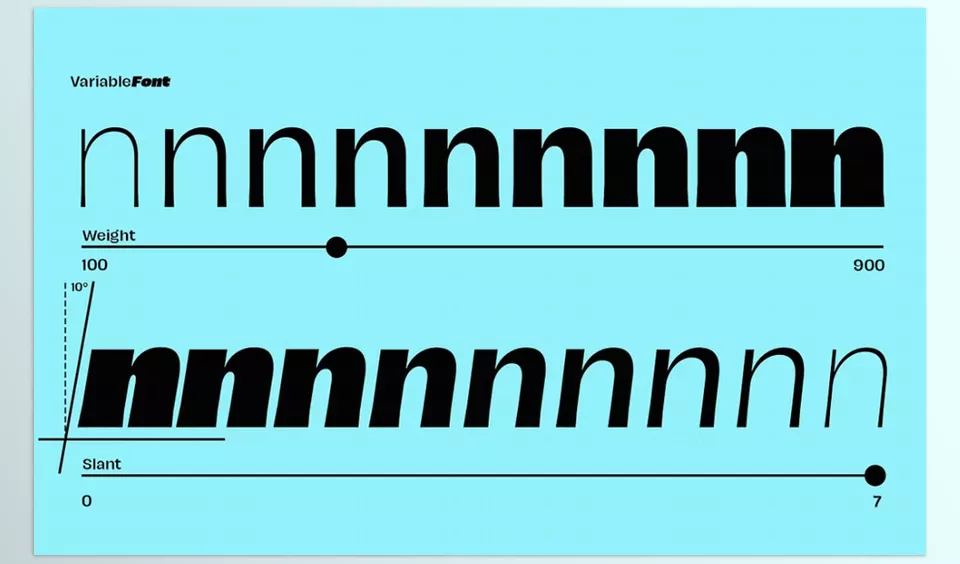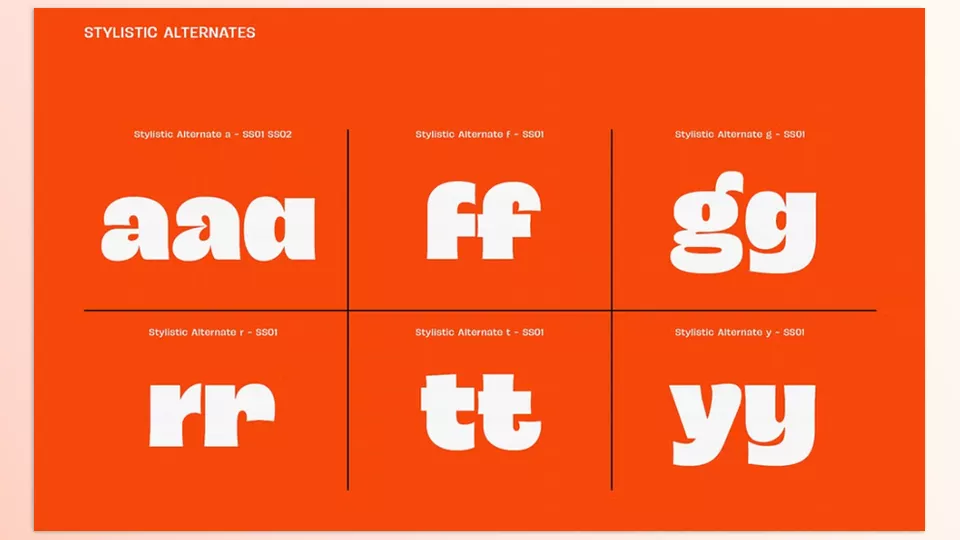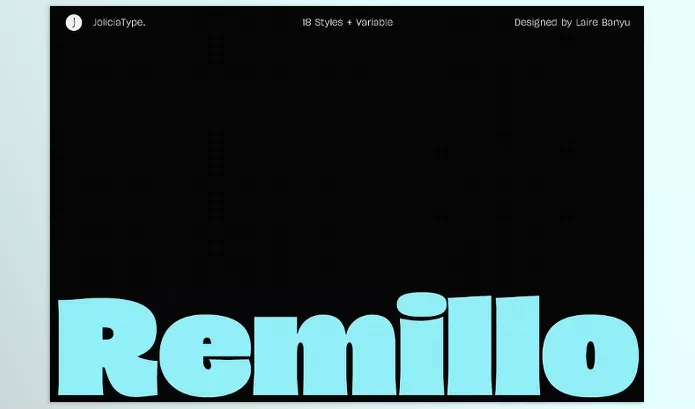
JT Remillo Humanist Sans Serif Font combines organic sophistication and ease of reading seamlessly. It has 18 styles and one variable font with both Upright and Italic versions, each slanted at a 10-degree angle. This typeface is best suited for digital designs that require striking headings and branding.
Image 1: Where elegance meets clarity, perfect for any design.
Image 2: Bold presence and effortless readability for modern creatives.